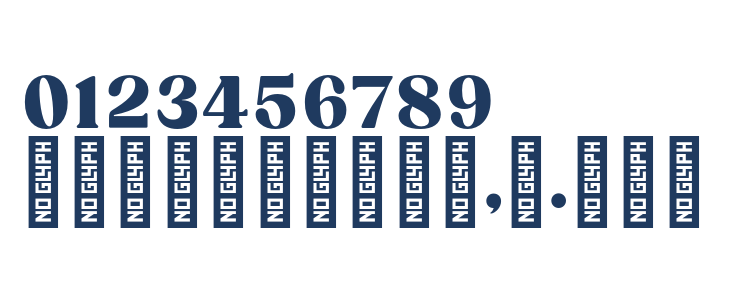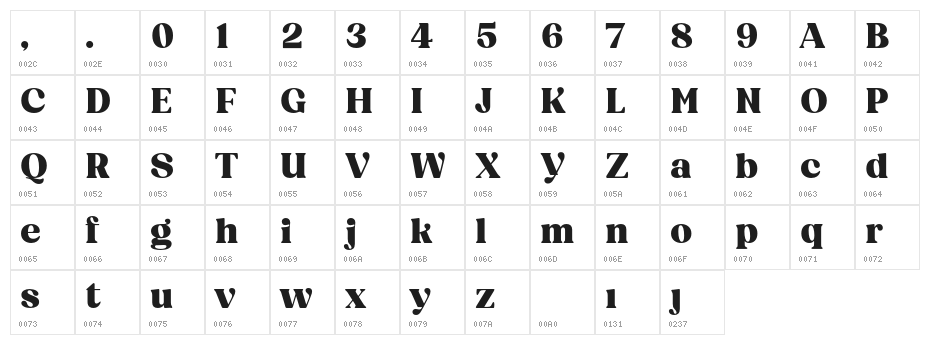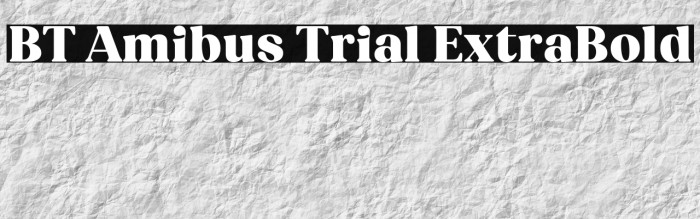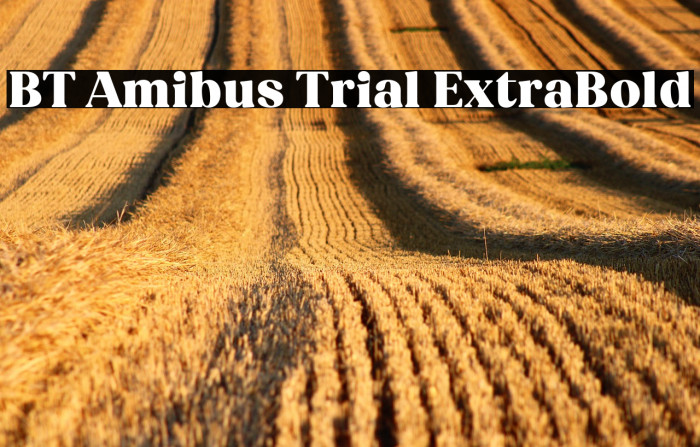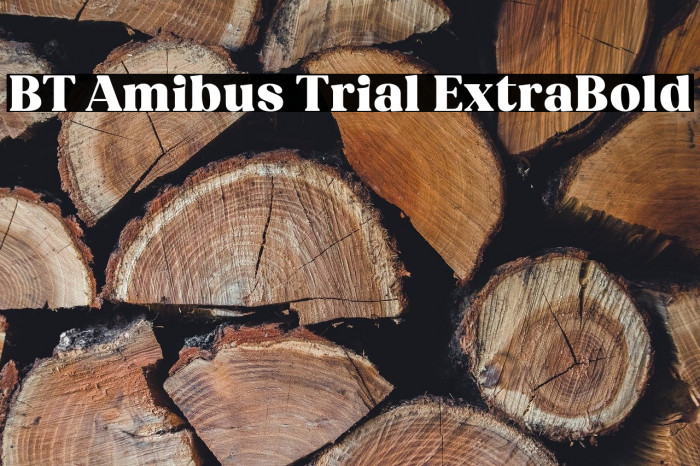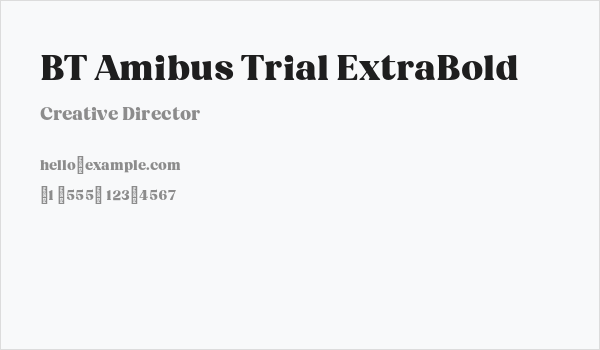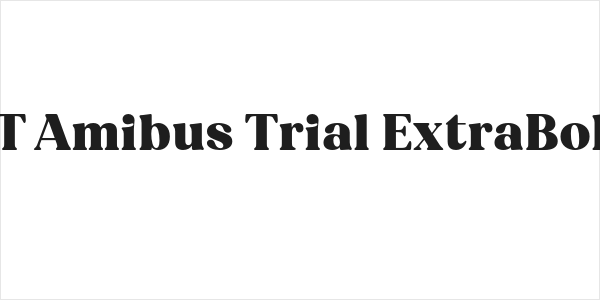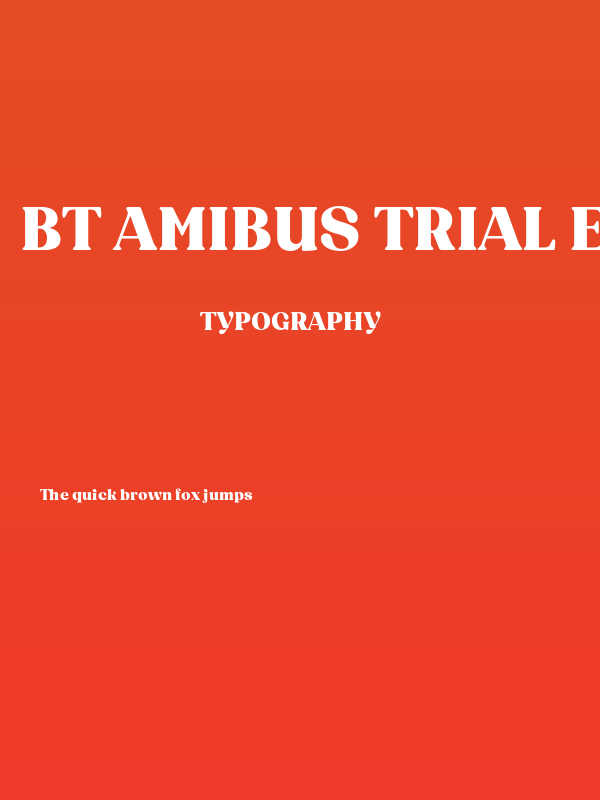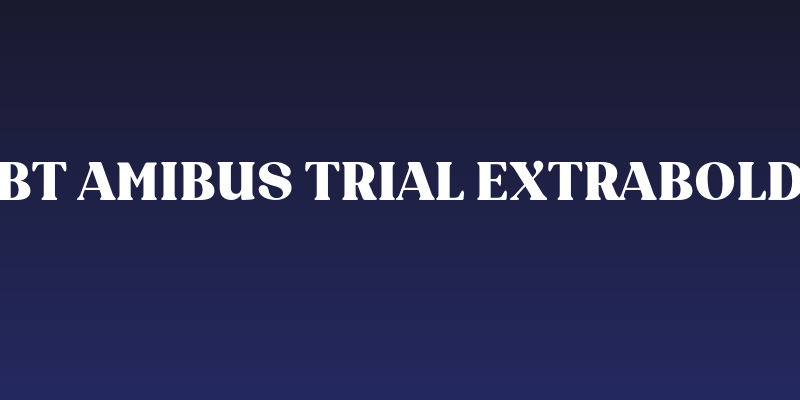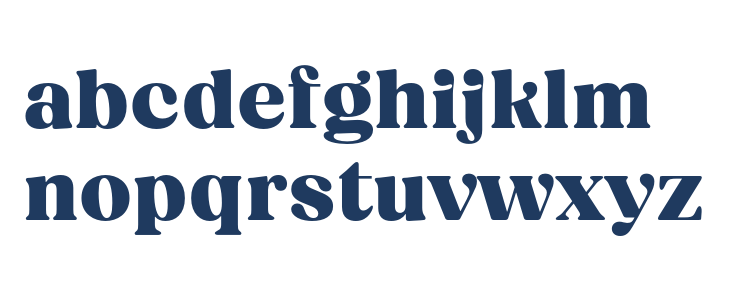
BT Amibus Trial ExtraBold Font
BT Amibus Trial ExtraBold Description
This font features a bold and commanding presence with its thick, strong strokes and high contrast between thick and thin lines. The serifs are pronounced, adding a touch of elegance and tradition to the overall design. The uppercase letters stand tall and assertive, while the lowercase letters maintain a consistent weight, ensuring readability and balance. The numerals are equally bold, making them stand out effectively. The character spacing is normal, providing a harmonious flow between letters. This font is ideal for making a statement in any design, capturing attention with its robust and classic style.